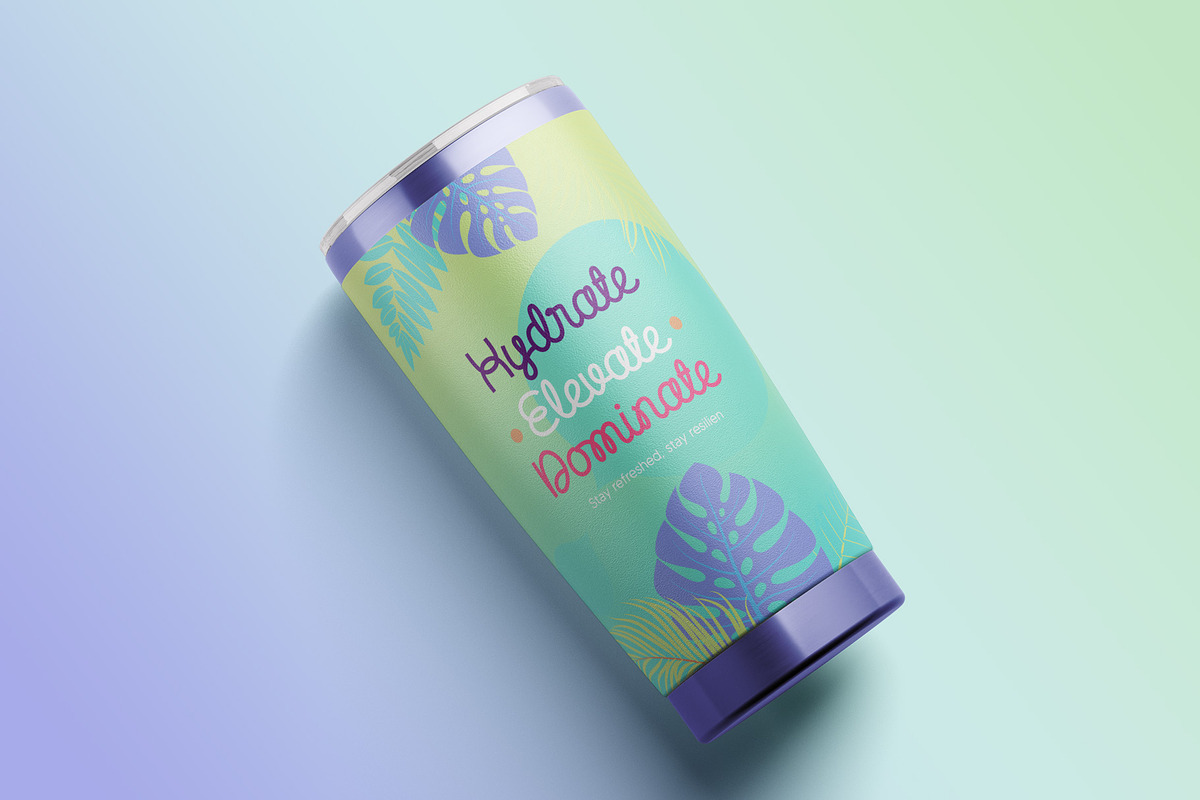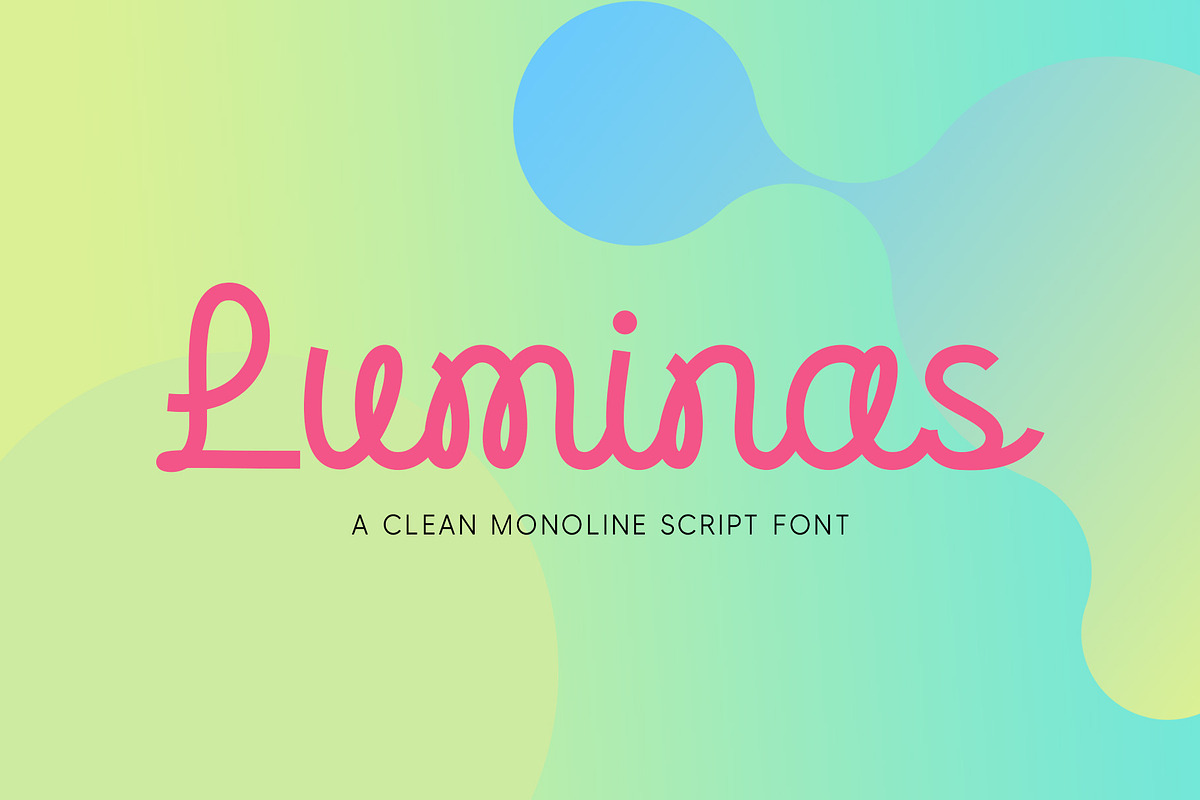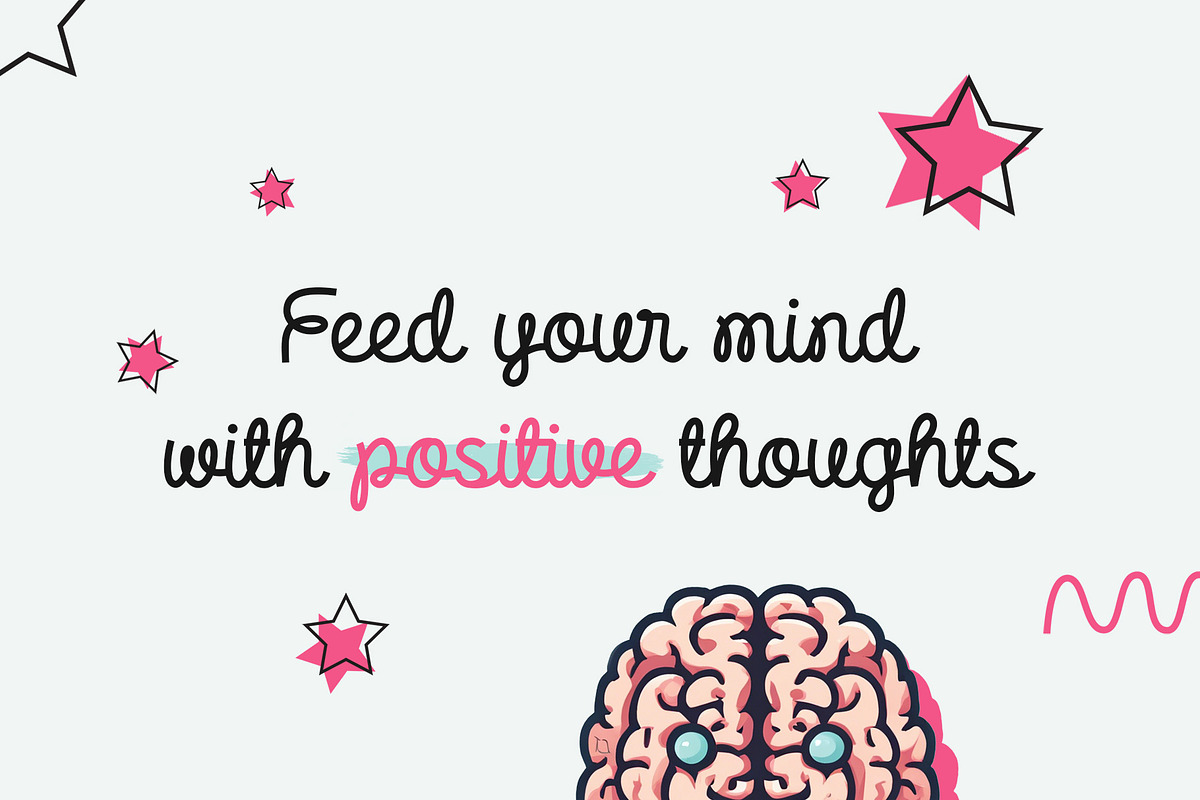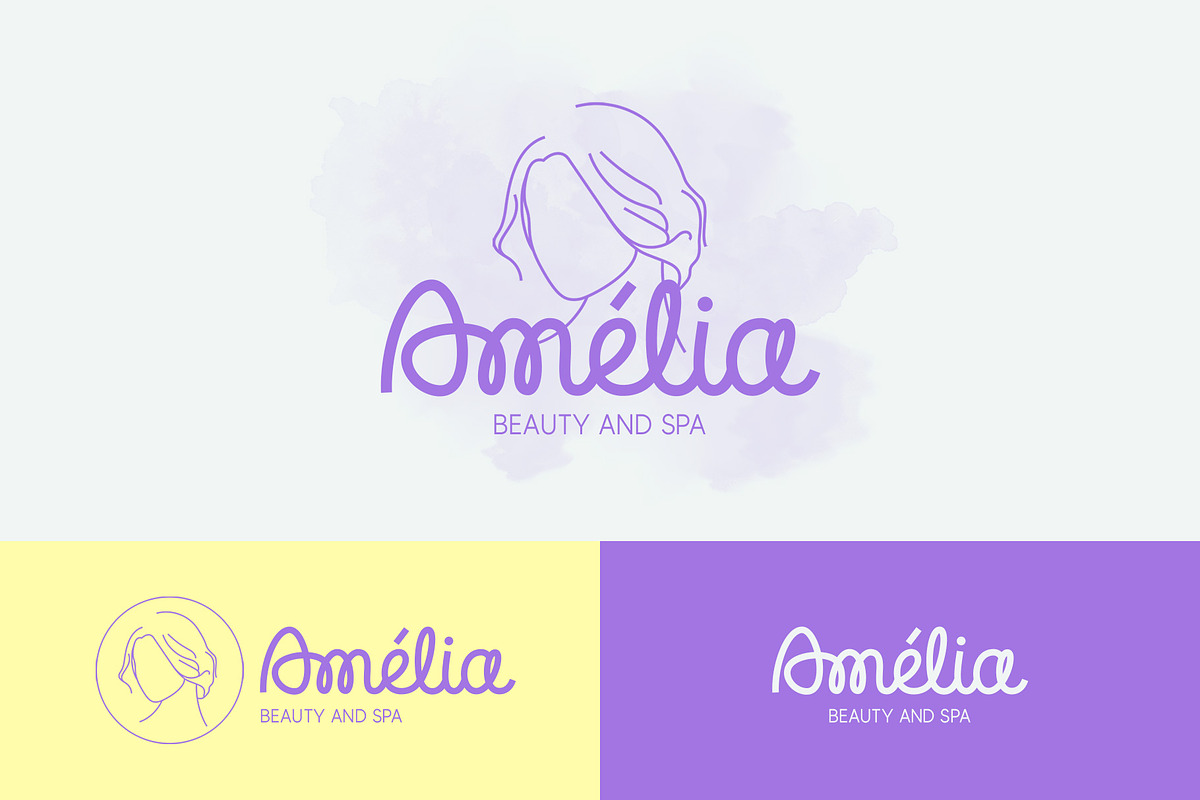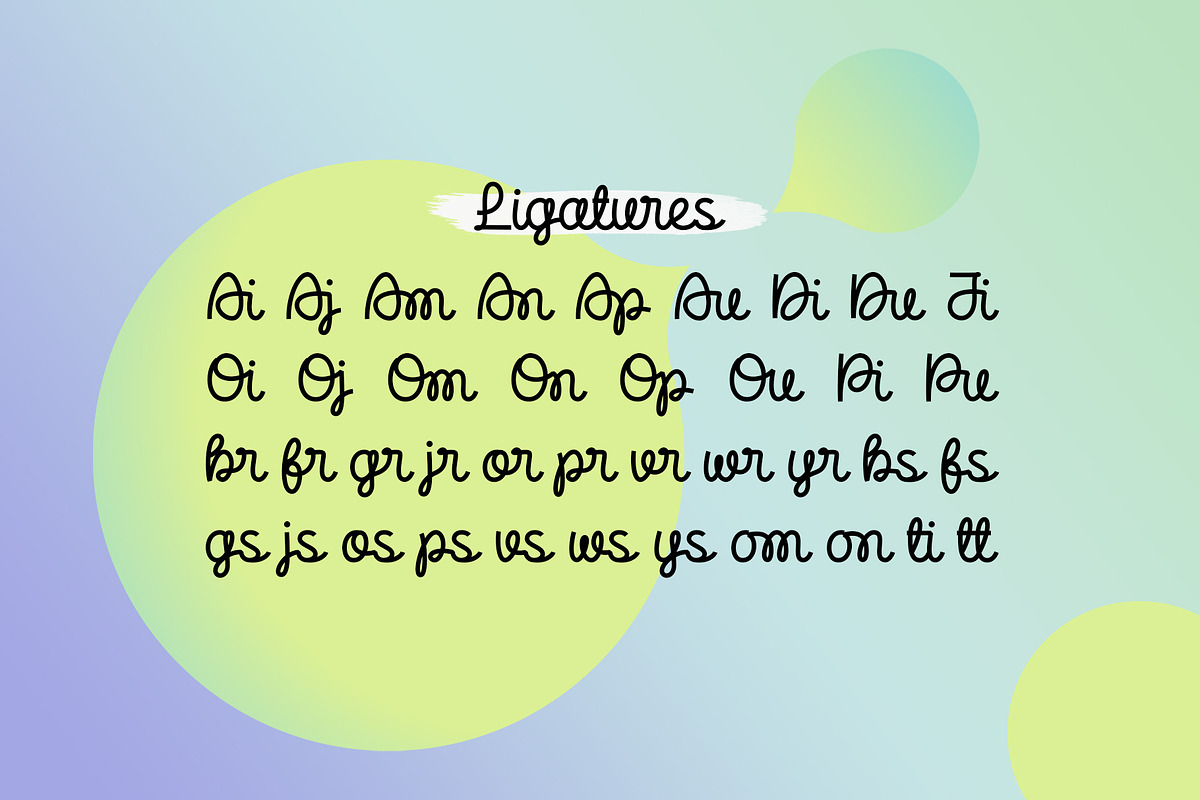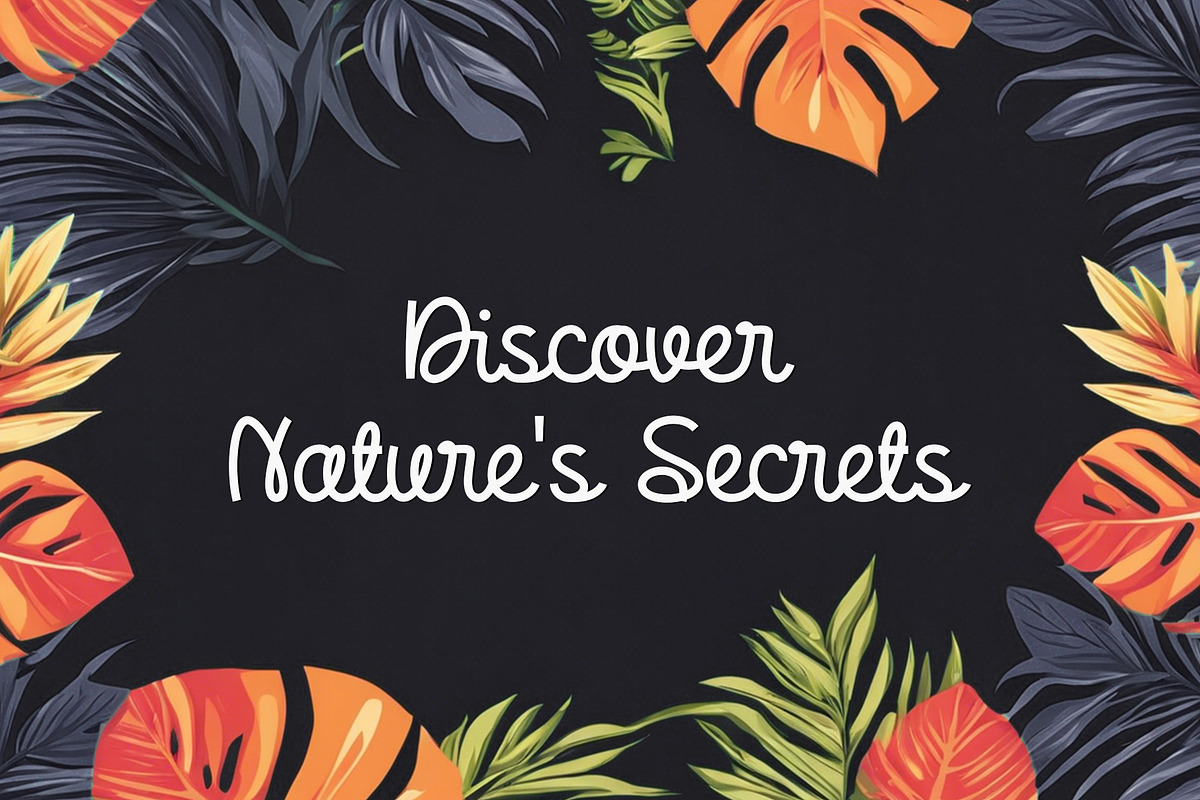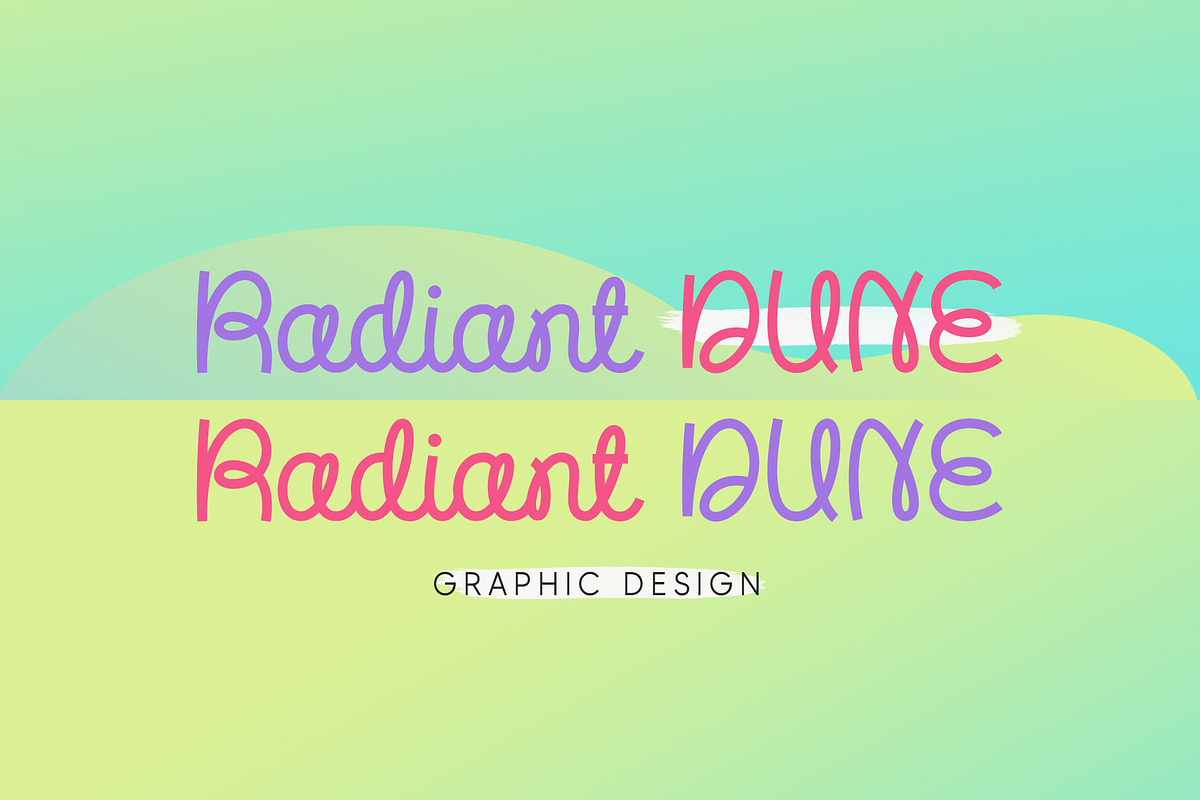
Luminas | Monoline Script
Luminas is a script font that captures attention with its unique and modern style. Each letter flows smoothly, creating a clean and elegant appearance. With its monoline writing style, this font adds a fresh and trendy touch. Suitable for various designs such as logos, branding, product packaging, business cards, greeting cards, invitations, and more.